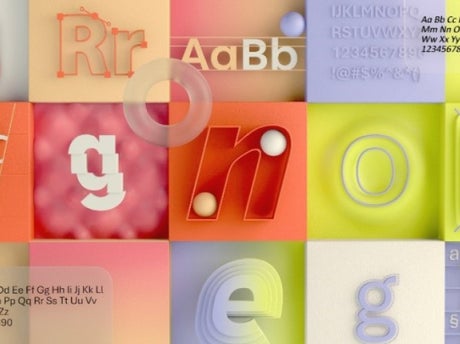
Microsoft is looking for its new default font and is encouraging users to decide which it will be.
The company’s default font on all Microsoft products has been Calibri, which replaced Times New Roman in 2007.
There are now five new contenders for the default font: Tenorite, Bierstadt, Skeena, Seaford, and Grandview.
“The degree to which seemingly minute differences in typography can create visceral responses”, Microsoft says, is apparently “a testament to the art and science of font design.”
The various fonts described “pan the various sans-serif styles—humanist, geometric, swiss-style, and industrial”, Microsoft adds.
Tenorite, by Erin McLaughlin and Wei Huang, “has the overall look of a traditional workhorse sans serif”, and is round, wide, and crisp, according to the designers. Its tight fit apparently allow for more words to fit on a line yet has “generous character spacing”.
Bierstadt, by Steve Matteson, is inspired by mid-20th century Swiss typography. It has large, block-style letters with little flourishes or contrast between thick and thin strokes.
“Microsoft already has Arial—which has many attributes from grotesque types preceding Helvetica—and my approach was to design a sans serif which would contrast with Arial by being far more mechanical and rationalized,” Matteson says.
“The terminal endings are precisely sheared at 90 degrees—a modern note contrasting the softer, angled endings in Arial—and a lack of somewhat fussy curves found in Arial’s ‘a’, ‘f’, ‘y’ and ‘r’.”
Skeena, by John Hudson and Paul Hanslow, is a “humanist” sans serif font with modulated strokes and a noticeable contrast between thick and thin lines, apparently making it ideal for body text in long documents. That contrast is usually associated with luxury branding, which work in large type but can be “unsightly and … brittle” if too small.
Seaford,by Tobias Frere-Jones, Nina Stössinger, and Fred Shallcrass, is “gently organic and asymmetric”, but should be useful for forms as the differences between letters should make recognisable word shapes
“To pinpoint the kind of familiarity and “comfort” the typeface should evoke, we also looked at pictures of old armchairs … nothing overtly plushy or nostalgic”,Stössinger says.
“When it comes to italics, it turns out there are parallels between chair ergonomics and typography: rather than inflating it and making it softer, trust the rigid moments that are good for your back.”
The last entry is Grandview, by Aaron Bell. derived from classic German road and railway signage, and made to be legible at distance and under poor weather conditions, Bell made the font wider while keeping the height the same. This made it more legible for body text, where it was not often used.
The five fonts are currently available to use, and Microsoft will be using polling and “feedback and comments on social” as to which will be chosen. Once a decision is made, it will become the new default font in 2022.